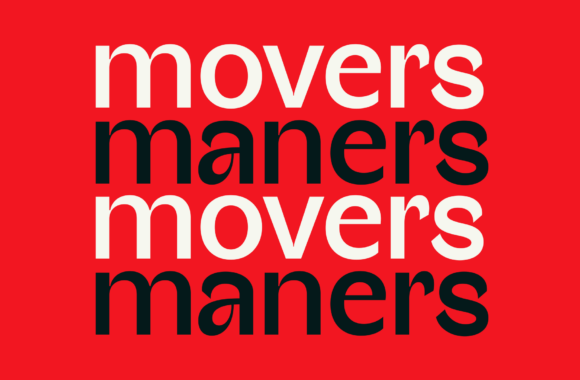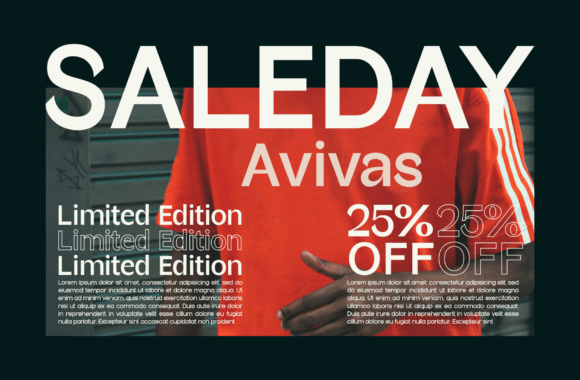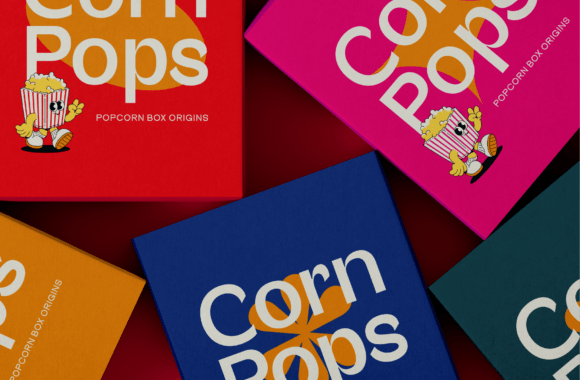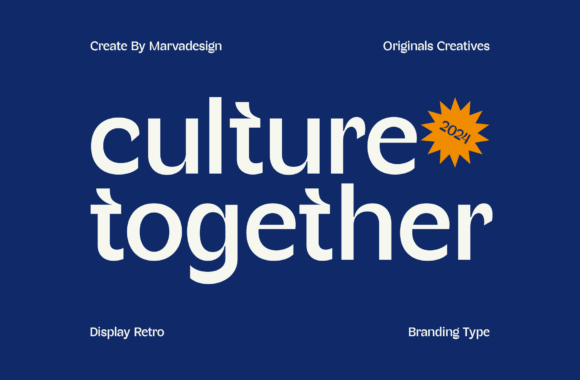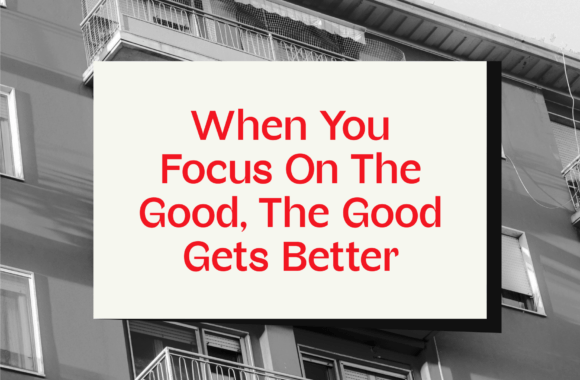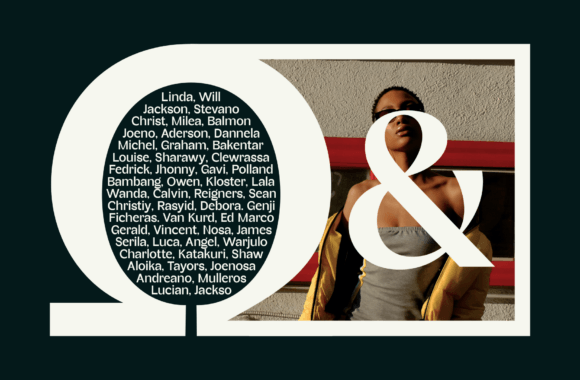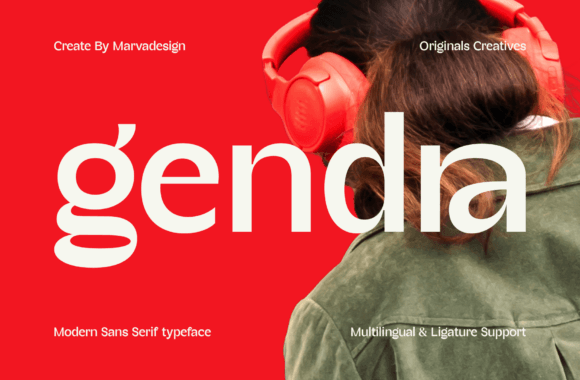
Introducing Gendra Font: The Epitome of Modern Sans-Serif Elegance
In the realm of typography, the right font can elevate a design from ordinary to extraordinary. For those seeking a modern, sleek, and stylish typeface, look no further than Gendra Font. This contemporary sans-serif font is making waves in the design community with its clean and minimalist aesthetic, coupled with unique touches that set it apart from more traditional fonts.
The Design Philosophy of Gendra Font
Gendra Font embodies the essence of modern design. Its regular style is characterized by simplicity and elegance, making it an ideal choice for designers who appreciate clean lines and uncluttered typography. However, what truly sets Gendra apart is its infusion of unique touches in several lowercase characters. These subtle distinctions give the font a distinctive and contemporary feel, allowing it to stand out in a crowded field of typefaces.
One of the key strengths of Gendra Font is its versatility. Whether you’re working on a branding project, creating a sale poster, designing a product, or embarking on a creative endeavor, Gendra proves to be an excellent choice. Its sleek and stylish appearance lends itself well to a wide range of applications, ensuring that your work will not only look professional but also impactful.
Why Choose Gendra Font?
- Modern Aesthetic: Gendra’s contemporary design ensures that your projects look current and relevant.
- Clean and Minimalist: The font’s clean lines and minimalist approach make it easy to read and visually appealing.
- Unique Character Touches: The distinctive lowercase characters add a layer of sophistication and uniqueness to your designs.
- Versatile: Suitable for a variety of projects, from digital content to print materials.
- Professional Appeal: Ideal for professionals looking to make a statement with their typography.
Applications of Gendra Font
Gendra Font’s adaptability makes it suitable for numerous applications. Here are a few ideas to get you started:
- Branding: Establish your brand’s identity with a modern and memorable typeface.
- Posters and Flyers: Grab attention with Gendra’s stylish and legible design.
- Product Design: Enhance your product’s visual appeal with a font that exudes quality and sophistication.
- Digital Content: Elevate your website, blog, or social media content with a professional and contemporary font.
Gendra Font is a game-changer for designers and crafters seeking a modern sans-serif font that combines elegance with uniqueness. Its clean and minimalist design, coupled with distinctive character touches, makes it an invaluable asset for a wide range of creative projects. Whether you’re looking to establish a strong brand identity, create eye-catching posters, or simply elevate your digital content, Gendra Font is an excellent choice. Experience the impact of modern typography with Gendra and take your designs to the next level.